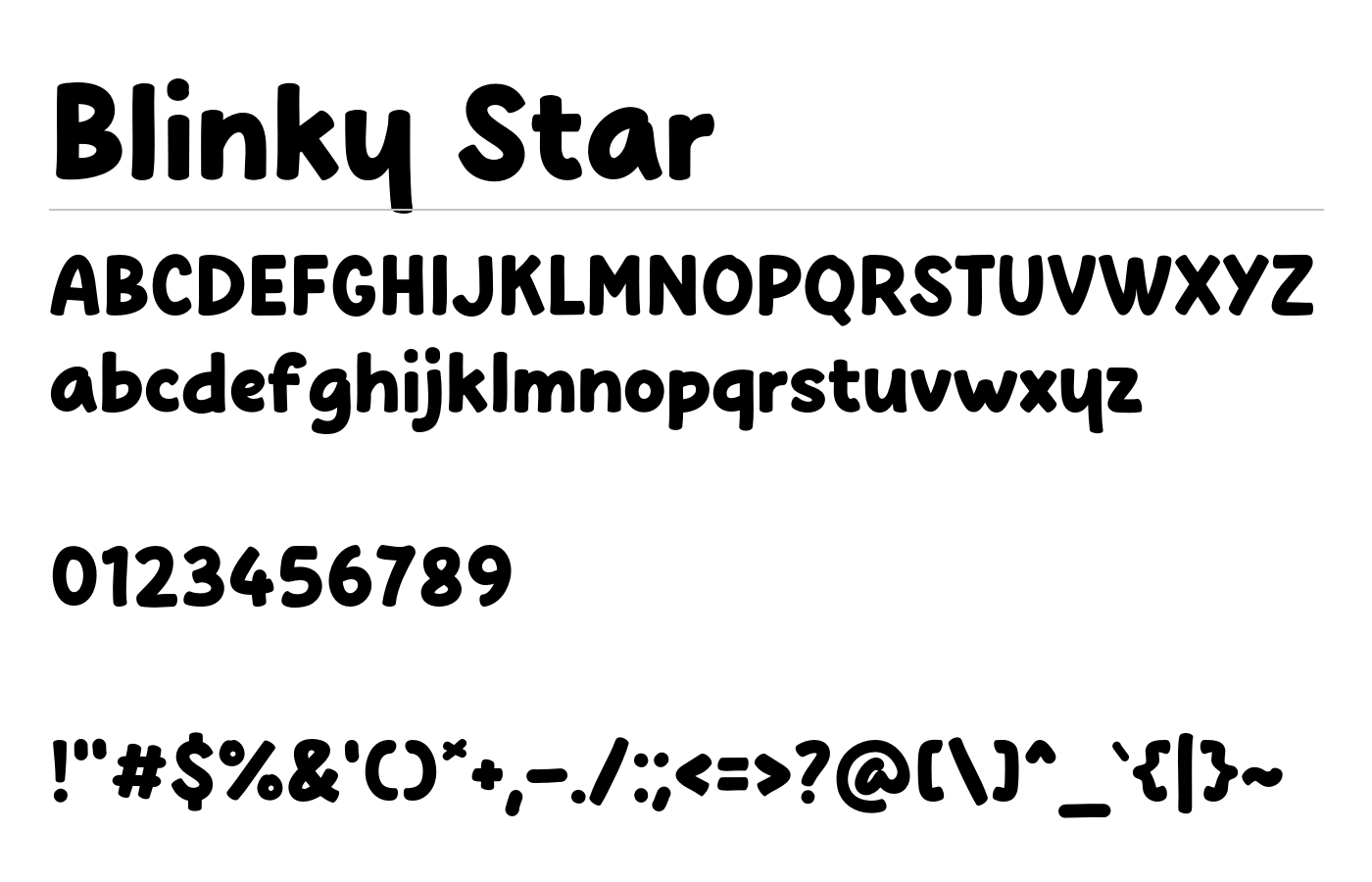
Blinky Star is a playful and bold sans serif font with rounded, lively letterforms that evoke a friendly and casual vibe. Its wide, slightly irregular shapes and uniform stroke weight make it perfect for creative projects, children’s materials, and informal branding. This font shines in headlines and logos where a warm, approachable personality is desired.
Blinky Star Font
About Blinky Star Font